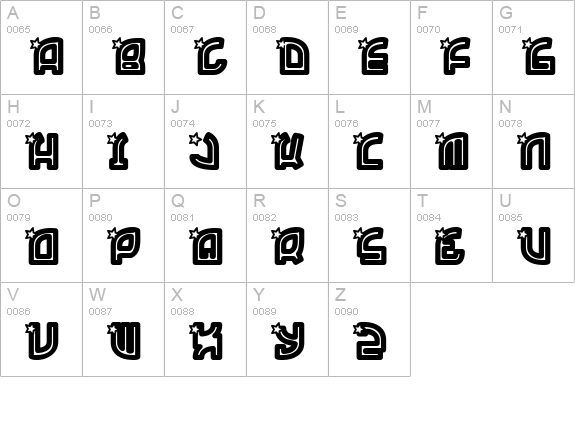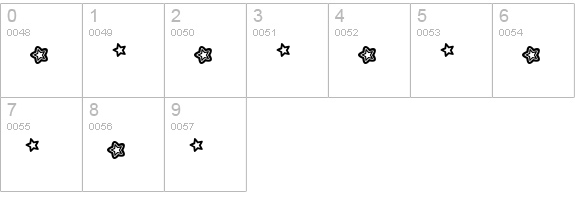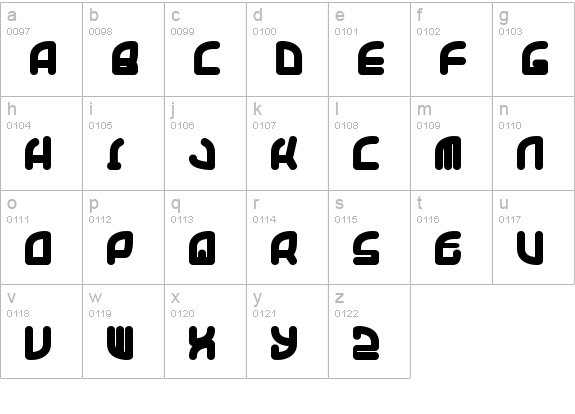
SuperTrooper Font Details
SuperTrooper font is a modern and stylish typeface that is sure to make your designs stand out. With its bold and eye-catching characters, SuperTrooper is perfect for creating attention-grabbing headlines or adding a unique touch to your projects. This versatile font is free to download at FontsMarket.com, making it easily accessible for all your design needs. Whether you're working on a poster, logo, or website, SuperTrooper will add a touch of flair and personality to your work. Download it today and elevate your designs to the next level with this striking font.